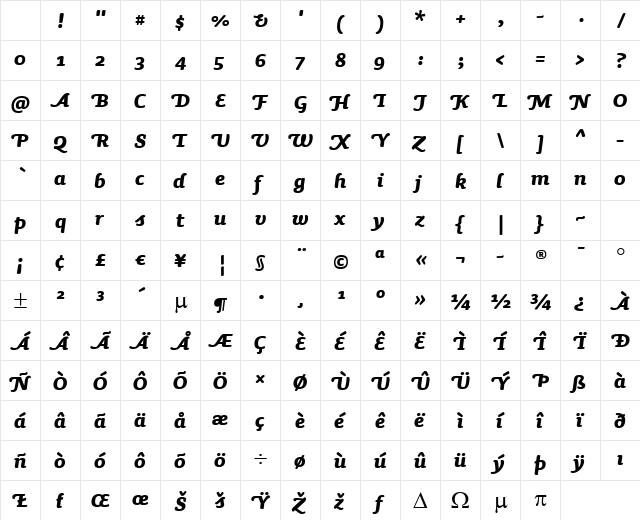
Sauna Swash flows with the natural rhythm of handwritten lettering, making it ideal for designs that call for warmth and personal expression. Its bold stroke weight gives it real presence on the page.
Font Pairing: Combine Sauna Swash with a simple geometric sans for maximum contrast - the tension between flowing curves and clean structure is a classic typographic pairing.
Pro Tip: Use Sauna Swash for short runs of text - names, titles, or taglines. Extended body copy in script faces tires the eye quickly.